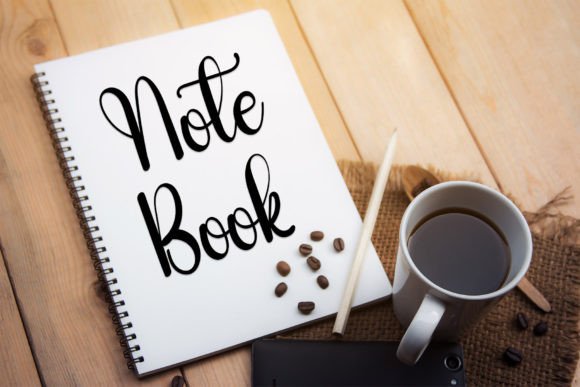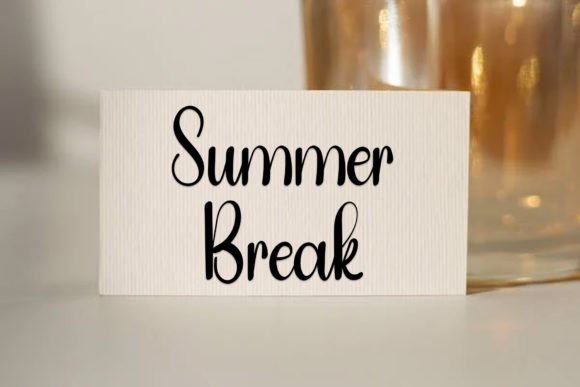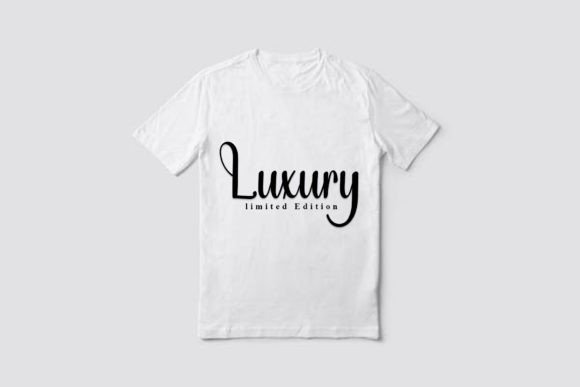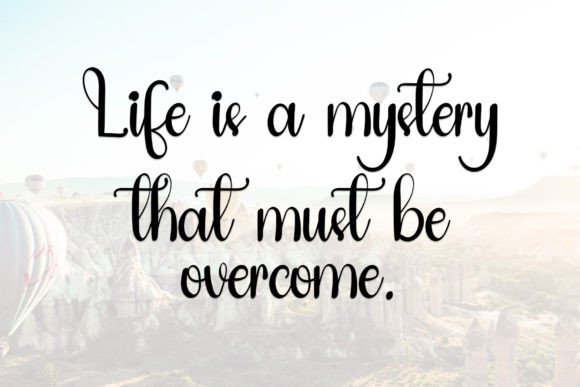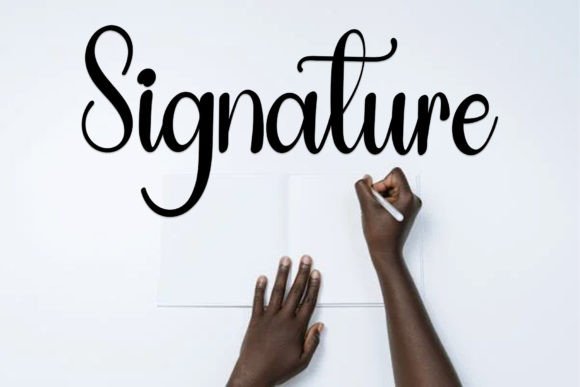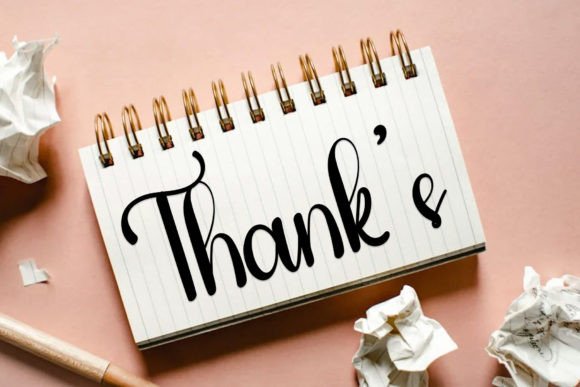
Unleashing the Whimsy: Discover the Beautiful Woman Font
As designers, we’ve all been there – stuck in a creative rut, desperate for that perfect font to bring our vision to life. For me, it was a lazy Sunday afternoon, scrolling through social media, and stumbling upon a beautifully designed invitation. The playful, handwritten font used was the first thing that caught my eye – and it sparked a whole new idea for a project.
That font was none other than the Beautiful Woman Font, a casual, handwritten script that exudes warmth and friendliness. With its rounded, playful strokes, it’s perfect for personal projects, invitations, and social media graphics. The Beautiful Woman Font’s charming, hand-drawn aesthetic adds a delightful, whimsical touch to any design, making it a valuable addition to any designer’s toolkit.
Beautiful Woman Font Key Features
- Font Family: Beautiful Woman is a unique, hand-drawn font designed to evoke a sense of elegance and sophistication.
- Character Set: The font includes a comprehensive set of characters, including uppercase and lowercase letters, numbers, punctuation marks, and special characters.
- Unique Characteristics: Beautiful Woman features flowing, cursive-like lines, and intricate details that give it a touch of femininity and whimsy.
Designer Review: Beautiful Woman Font
The Beautiful Woman Font is a stylish and elegant script font designed to evoke a sense of sophistication and femininity. ✨ The font’s flowing lines and delicate curves make it perfect for titles, headings, and any other text where you want to add a touch of glamour.
The Beautiful Woman Font works well for:
- Fashion and beauty branding
- Blog posts and articles with a feminine tone
- Any project where you want to add a touch of elegance and sophistication
However, there are some limitations to keep in mind:
- ⚠️ The font may be difficult to read in small sizes or at low resolutions
- ⚠️ The font’s script nature can make it challenging to pair with other fonts, especially sans-serif fonts
- ⚠️ The font may not be suitable for body text, as it can be overwhelming and difficult to read in large quantities
Overall, the Beautiful Woman Font is a beautiful addition to any design project, but it’s essential to use it judiciously and consider its limitations when making your design decisions.
The Beautiful Woman Font is ideal for creating feminine and elegant designs. Use it for:
- Bride-to-be invitations and wedding stationery
- Women’s fashion and beauty advertisements
- Girls’ and women’s magazines
- Personalized gifts and greeting cards
Remember to pair the Beautiful Woman Font with a contrasting background and color scheme to make it stand out.
The Beautiful Woman Font includes a range of font sizes and styles, including Regular, Italic, Bold, and Bold Italic. You can use these styles to create visually appealing typography in your designs.